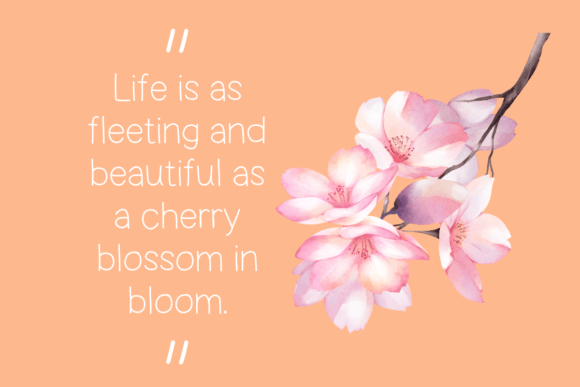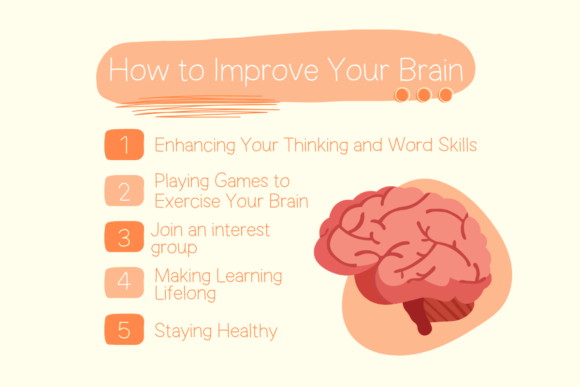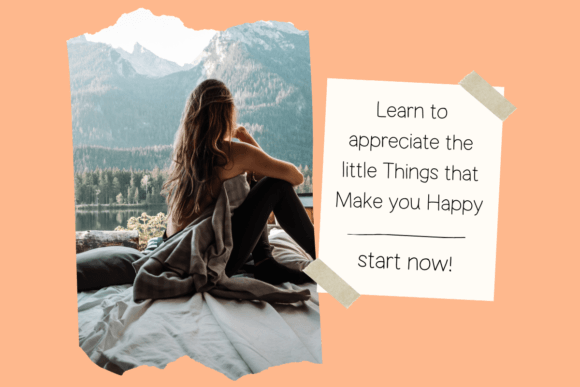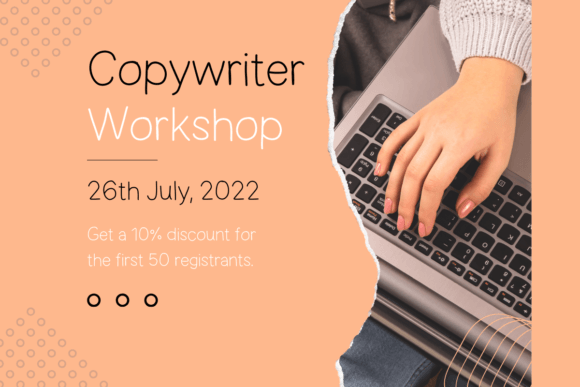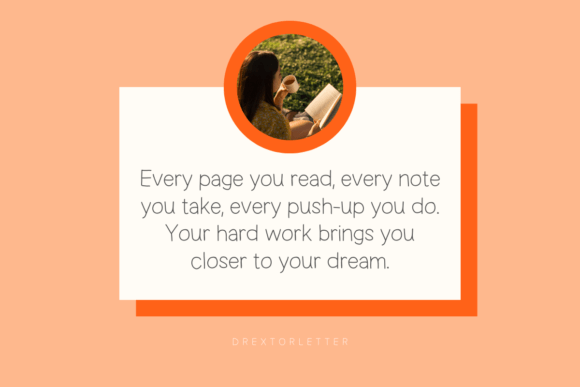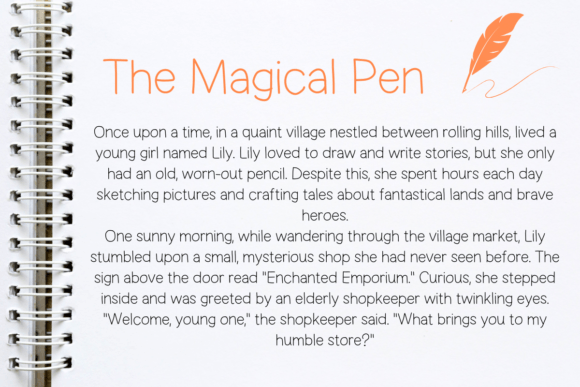
You know that feeling when you’re brainstorming a new project and your mind starts racing with ideas? The excitement of bringing something new to life is exhilarating, but it can also be overwhelming. That’s when a trusty font like Cherry Blossom Font comes to the rescue. This adorable handwritten font is the perfect companion for any creative endeavor, from digital note-taking to designing beautiful Procreate art.
With its versatility and charming aesthetic, the Cherry Blossom Font is a valuable addition to any designer’s toolkit. Whether you’re working on a blog post, a logo, or a digital planner, this font is sure to add a touch of whimsy and personality to your work. Its clean lines and elegant feel make it an ideal choice for a wide range of projects, from greeting cards to photo albums.
Key Features of Cherry Blossom Font
- Unique Characteristics: The Cherry Blossom Font features intricate, hand-drawn designs with delicate petals and subtle texture, evoking the beauty of cherry blossom trees.
Cherry Blossom Font Review
Overall, I think the Cherry Blossom Font has some beautiful and delicate elements, but it also has some limitations that might make it less suitable for certain projects.
- The font’s design is inspired by traditional Japanese cherry blossom motifs, which adds a unique and cultural touch to any project.
- The font’s lines and shapes are smooth and flowing, making it perfect for creating elegant and sophisticated designs.
- The font’s size and spacing are well-balanced, making it easy to read and understand.
- The font may be too delicate and subtle for certain projects, such as those that require bold and attention-grabbing text.
- The font’s design may not be suitable for projects that require a lot of text or complex typography, as it can become overwhelming and difficult to read.
While the Cherry Blossom Font has some beautiful and unique elements, it may not be the best choice for all projects. However, for those that require a delicate and sophisticated touch, it could be a great option.
The Cherry Blossom Font is ideal for creating whimsical and feminine designs. Some common use cases include:
– Baby shower invitations and decorations
– Food and beverage branding
– Social media graphics and advertisements